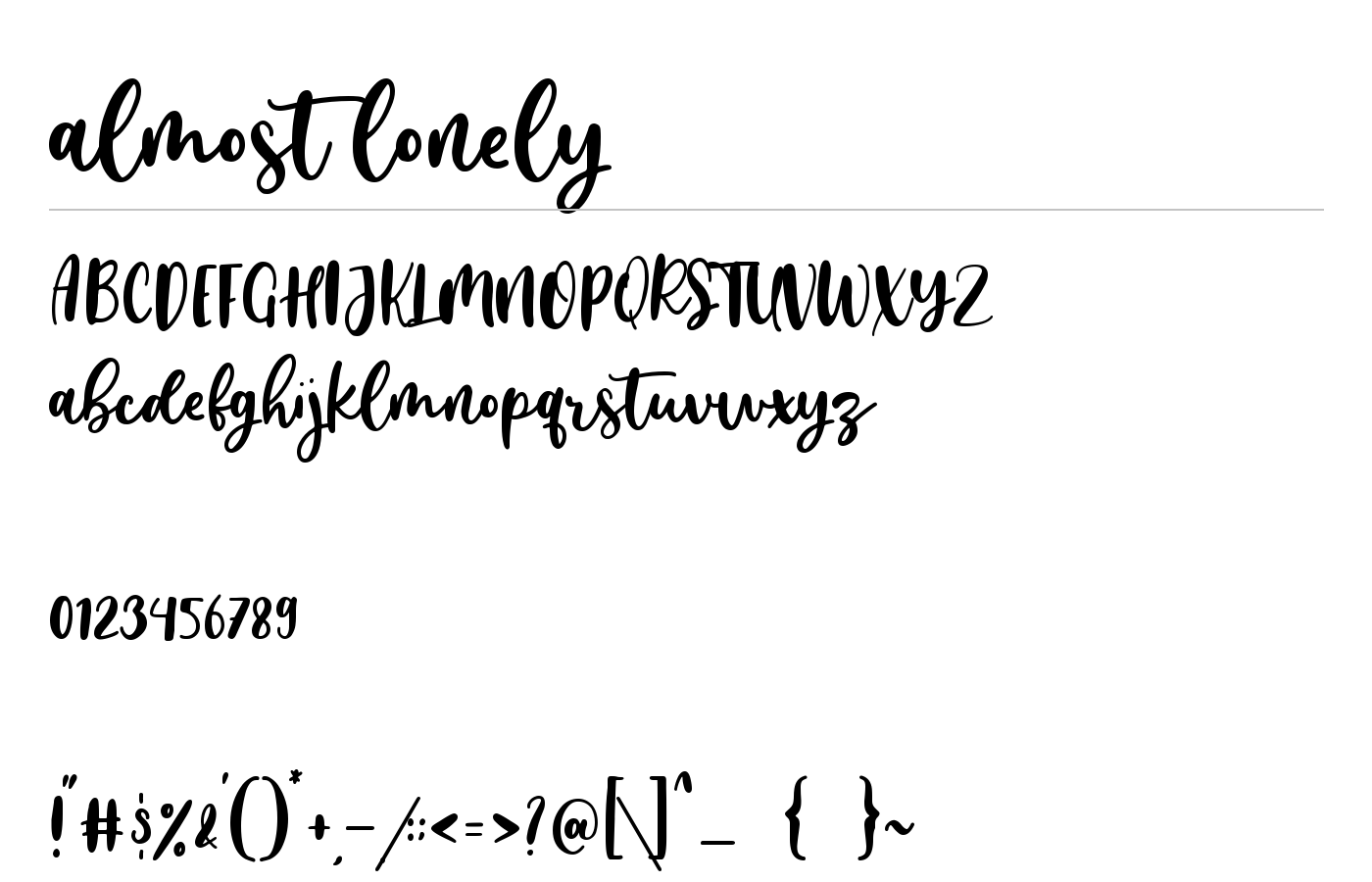
Almost Lonely is a lively and charming script font with a hand-drawn feel, featuring smooth, flowing strokes and playful swashes. Its medium weight and balanced x-height make it friendly and approachable, perfect for adding a personal, creative touch to branding, invitations, or social media designs. This font’s casual elegance works well for projects that want to convey warmth and individuality while maintaining clear readability.
almost lonely Font
About almost lonely Font
| Font family | almost lonely Font |
| Designer | Muhamad Yusron Billah |
| Trademark | Sronstudio |